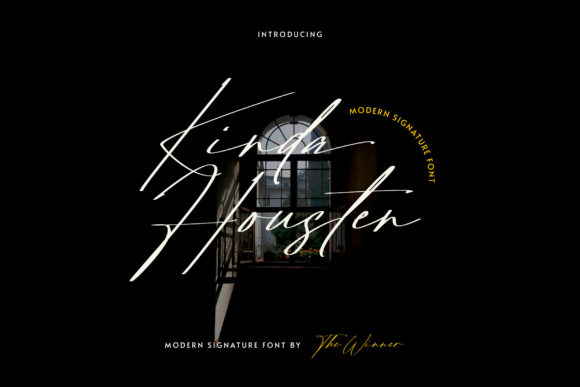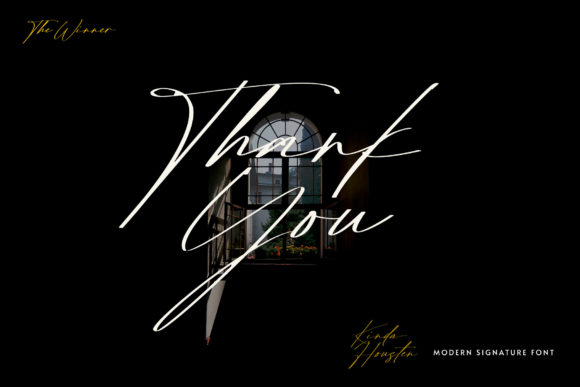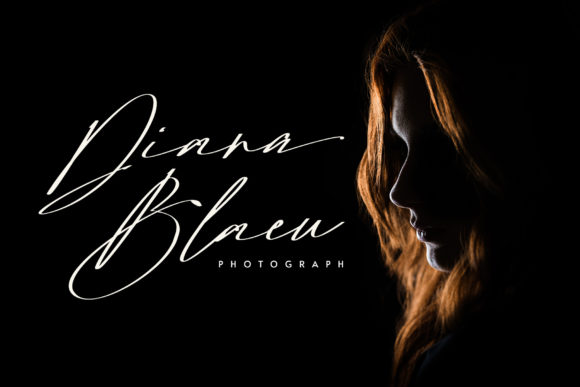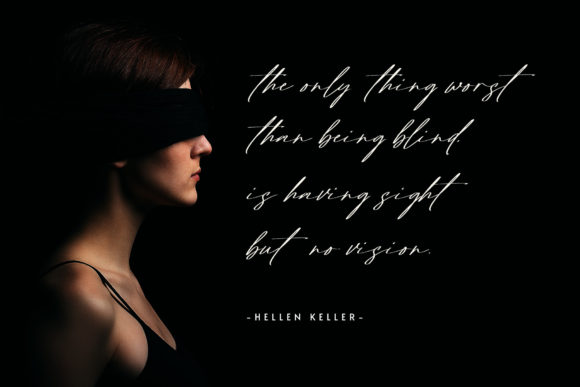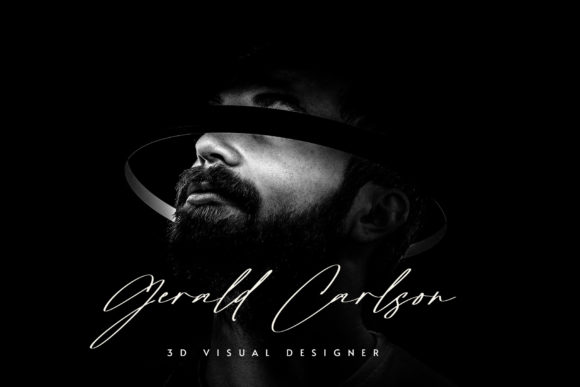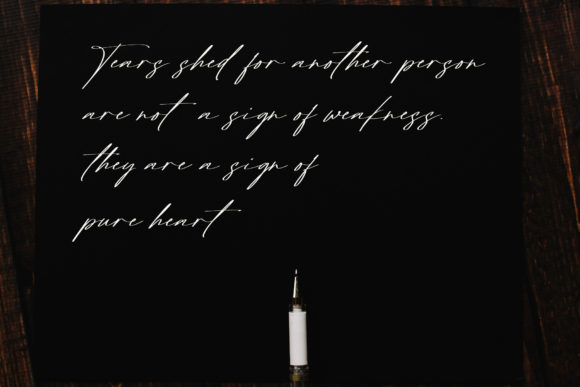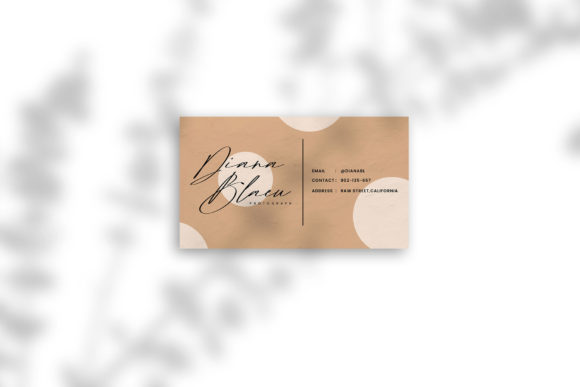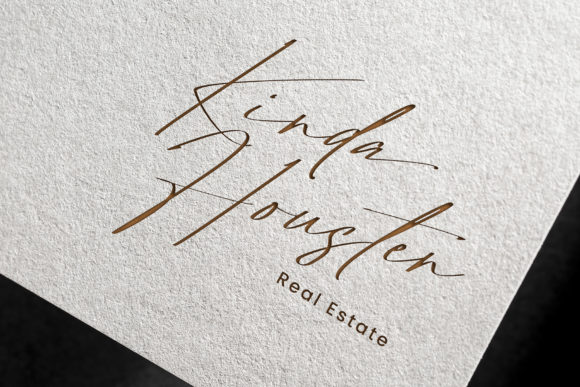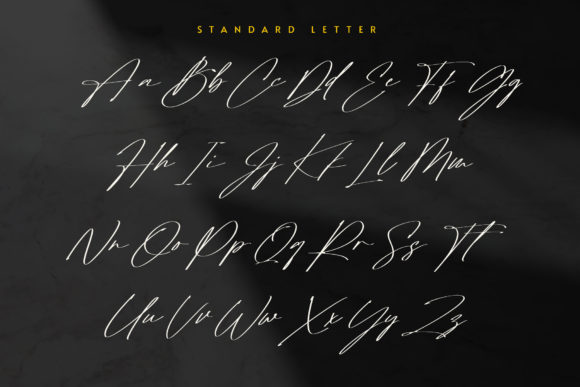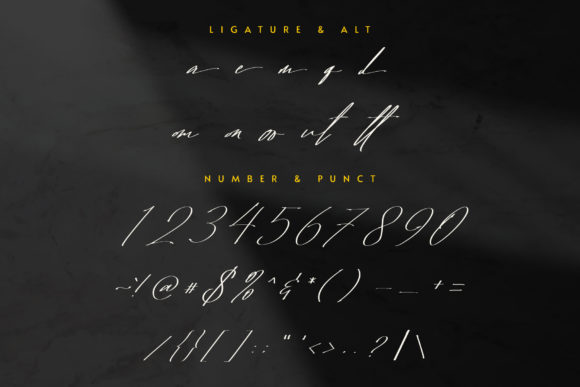
Kinda Housten Font
About Kinda Housten Font
Kinda Housten is a beautiful and refined script font that exudes class, elegance, and modernity. Its stylish and sophisticated design makes it a versatile choice for various design projects, ranging from logos and branding to invitations, stationery, wedding designs, and social media posts.
With its elegant and graceful letterforms, Kinda Housten adds a touch of sophistication and professionalism to your designs. Whether you’re creating a logo for a luxury brand, designing wedding invitations, or crafting social media graphics, this font brings a sense of elegance and refinement.
The modern look of Kinda Housten makes it suitable for contemporary design styles. Its clean and well-crafted letterforms provide a sleek and polished appearance, making it a perfect choice for projects that require a refined and upscale aesthetic.
The versatility of Kinda Housten allows it to adapt to various themes and design contexts. It can be used for both formal and casual designs, depending on how it’s styled and paired with other elements. Its flexibility opens up a wide range of creative possibilities, allowing you to create visually appealing and engaging designs.
Whether you’re working on digital or print projects, Kinda Housten will enhance the visual appeal of your designs. Its smooth and flowing strokes add a sense of fluidity and movement, creating a captivating and harmonious typographic composition.
In summary, Kinda Housten is a beautiful and refined script font that brings a classy, elegant, and modern look to your designs. Its versatility makes it suitable for a wide range of design projects, and its clean and well-crafted letterforms add a touch of sophistication to your creations. Embrace the elegance of Kinda Housten and elevate your designs with its timeless appeal.